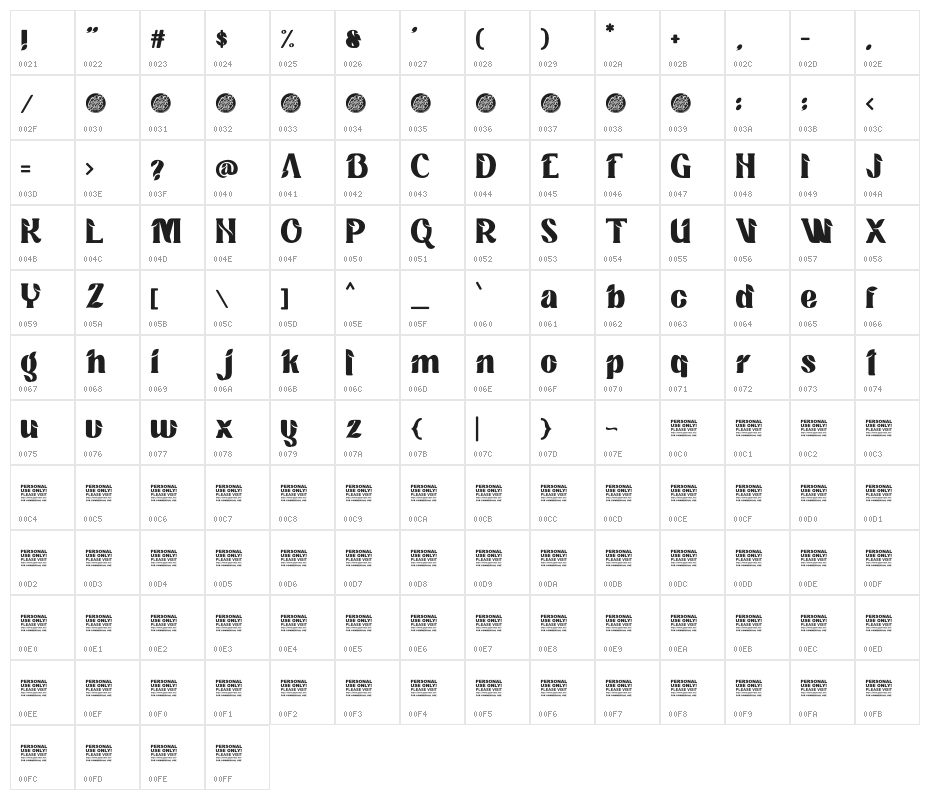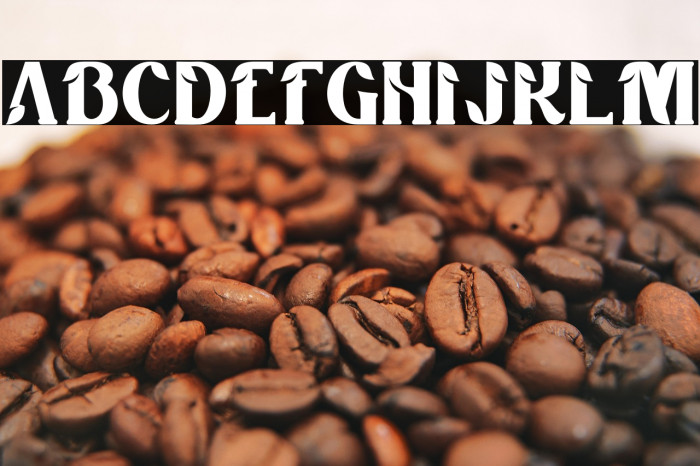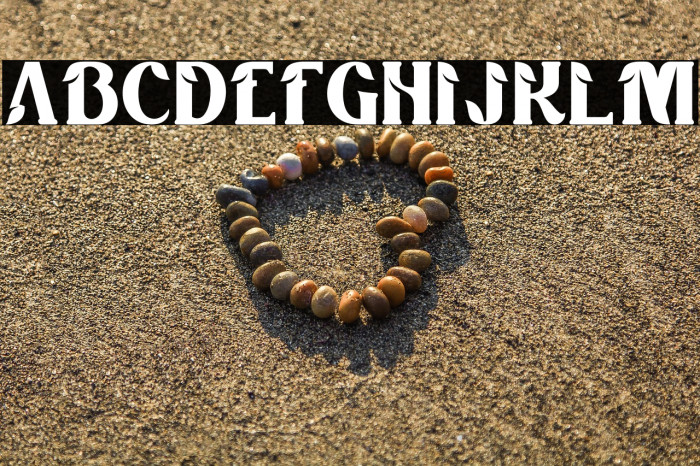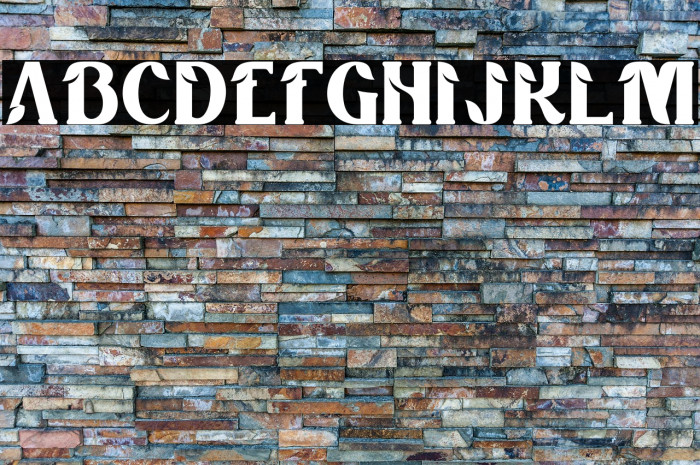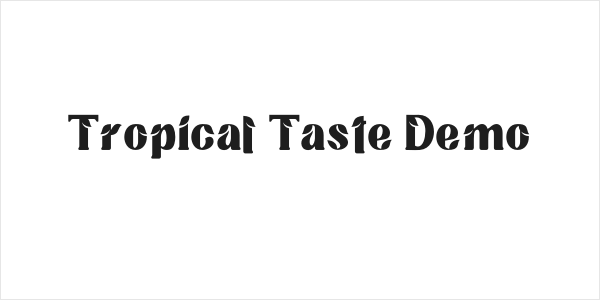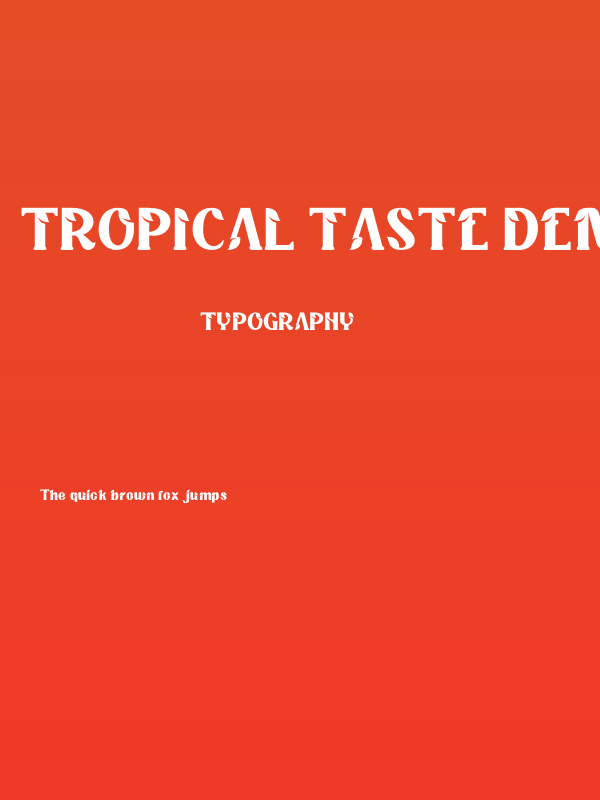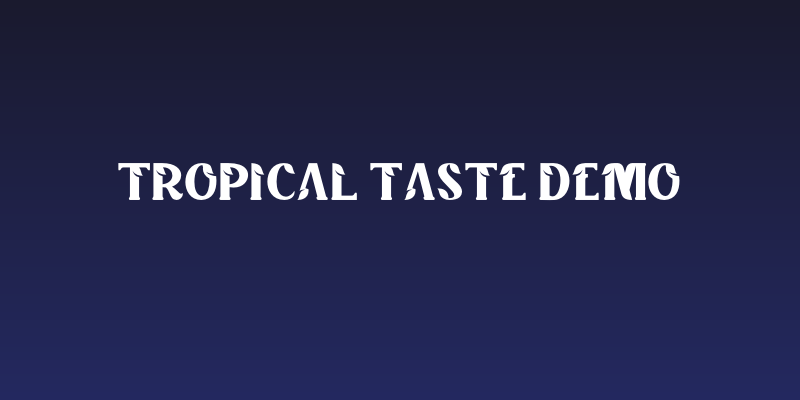
Tropical Taste Demo Font
Tropical Taste Demo Description
| Overall Style | Modern, Vintage |
| Proposed Projects | Ideal for branding, logos, posters, and packaging designs that require a bold and eye-catching typeface. |